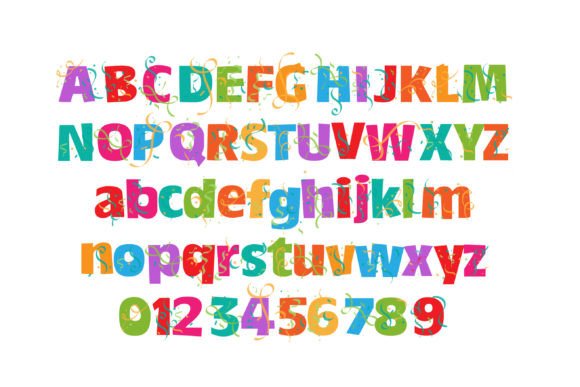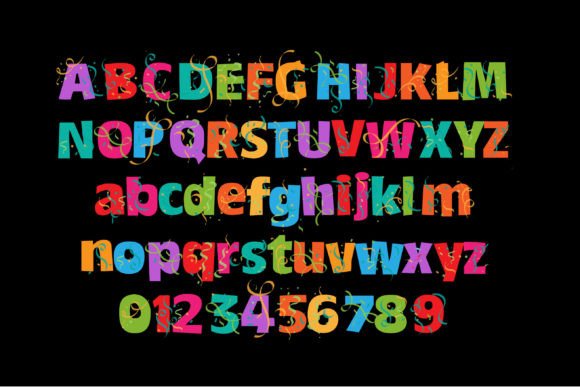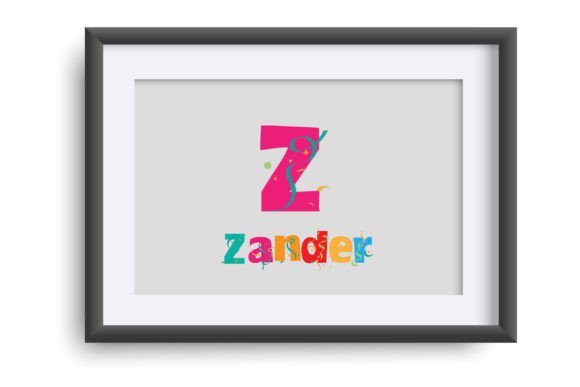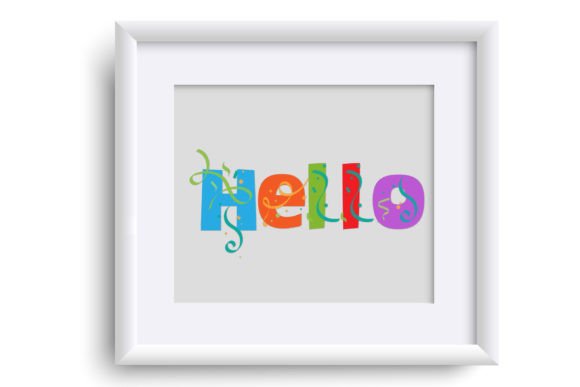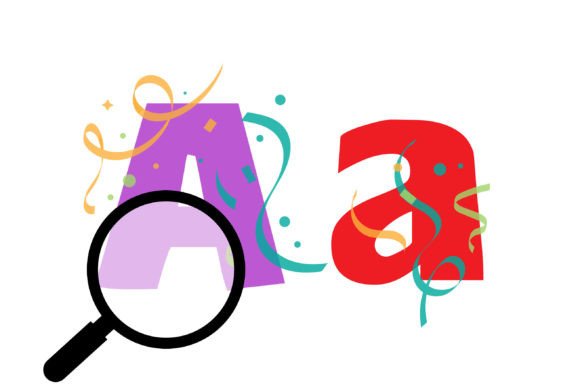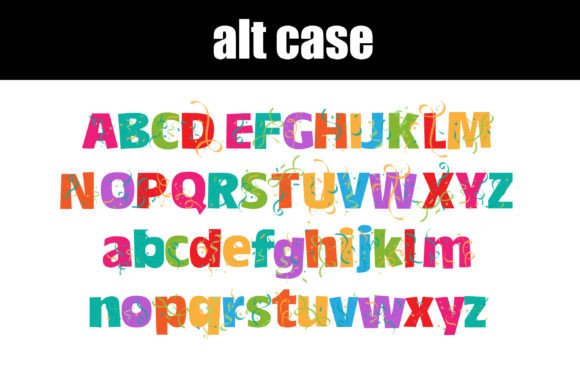
Introducing Happy Celebration Font: Add a Vibrant Touch to Your Designs!
Are you tired of using the same old fonts in your designs? Do you want to add a playful and whimsical touch to your projects? Look no further than Happy Celebration Font! This quirky and colorful font is full of life and energy, making it perfect for designers and crafters who want to create something truly unique.
The Perfect Blend of Fun and Creativity
Happy Celebration Font is a one-of-a-kind font that combines bright and bold colors with playful curves, creating a truly eye-catching effect. The mix of colors used in this font creates a unique look that’s sure to grab attention and make your designs stand out from the crowd. Whether you’re working on a graphic design project, crafting a handmade card, or creating a digital illustration, Happy Celebration Font is the perfect choice.
Key Features of Happy Celebration Font
- PUA Encoded: Happy Celebration Font is PUA encoded, which means you can access all glyphs and swashes effortlessly. This makes it easy to use and customize, even for those who are new to font design.
- Playful Curves: The playful curves in Happy Celebration Font bring a sense of fun and whimsy to your designs. They’re perfect for creating a lighthearted and carefree feel.
- Bright and Bold Colors: The bright and bold colors used in Happy Celebration Font make a statement. They’re sure to grab attention and add a pop of color to your designs.
- Unique Look: The mix of colors and playful curves in Happy Celebration Font creates a unique look that’s all your own. You won’t find another font like it!
Happy Celebration Font is perfect for designers and crafters who want to add a vibrant and whimsical touch to their projects. Whether you’re creating:
- Handmade cards and invitations
- Graphic design projects, such as brochures and flyers
- Digital illustrations and artwork
- Web graphics and social media posts
Happy Celebration Font is the perfect choice. Its unique look and playful feel make it ideal for projects that require a bit of personality and flair.
Tips for Using Happy Celebration Font
Here are a few tips for using Happy Celebration Font in your designs:
- Experiment with Colors: Don’t be afraid to experiment with different colors and combinations. Happy Celebration Font is all about bright and bold colors, so have fun with it!
- Mix and Match: Try mixing and matching Happy Celebration Font with other fonts to create a unique look. The playful curves and bright colors make it a great pairing with other fonts.
- Use it for Headings: Happy Celebration Font is perfect for headings and titles. Use it to add a pop of color and create a focal point in your design.
In conclusion, Happy Celebration Font is a quirky and colorful font that’s perfect for designers and crafters who want to add a vibrant and whimsical touch to their projects. With its bright and bold colors, playful curves, and unique look, it’s sure to make a statement. So why settle for boring and ordinary fonts when you can use Happy Celebration Font to create something truly special? Try it today and see the difference for yourself!
Whether you’re a seasoned designer or a crafter just starting out, Happy Celebration Font is a great addition to your font collection. So go ahead, get creative, and have fun with Happy Celebration Font!